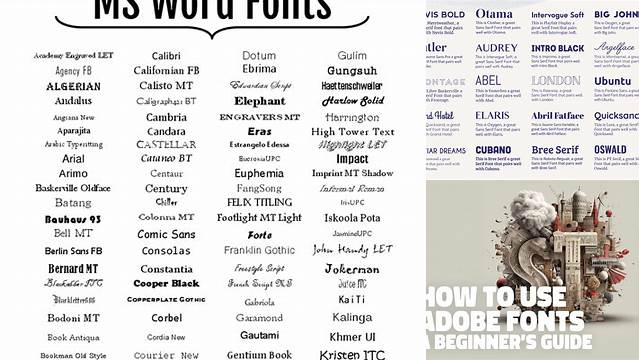
Using Adobe Fonts In Word: A Simple Guide
Hey guys! Ever wanted to spice up your Microsoft Word documents with some beautiful and unique fonts? Well, you're in luck! Adobe Fonts offers a massive library of fonts that can really make your documents stand out. But how do you actually use these fonts in Word? Don't worry, it's easier than you think! This guide will walk you through everything you need to know, from activating fonts to troubleshooting common issues. Let's dive in!
1. Understanding Adobe Fonts Integration with Microsoft Word
The first step in using Adobe Fonts in Microsoft Word is understanding how the two platforms work together. Adobe Fonts, formerly known as Typekit, is a subscription-based service that gives you access to thousands of fonts. These fonts are synced to your computer through the Adobe Creative Cloud desktop application. Microsoft Word, on the other hand, relies on the fonts installed on your operating system. The integration between Adobe Fonts and Word happens through this system-level font installation. When you activate a font in Adobe Creative Cloud, it becomes available to all applications on your computer, including Word. This seamless integration makes it incredibly convenient to use a wide variety of fonts in your documents. Think of it like having a gigantic font library at your fingertips, ready to transform your reports, resumes, and presentations. No more boring Times New Roman, folks! You can now express your creativity and professionalism with a vast selection of typefaces. This integration also ensures consistency across different platforms and devices, which is crucial for maintaining a polished and cohesive look in your documents. By understanding this underlying mechanism, you’ll be better equipped to troubleshoot any issues that might arise and make the most of the Adobe Fonts library in your Word documents.
6. Choosing the Right Adobe Font for Your Word Document
Choosing the right Adobe Font for your Word document is crucial for conveying the right message and creating a professional or stylish look. It's not just about picking a font that looks pretty; it's about selecting a typeface that suits the content and purpose of your document. Consider the tone you want to convey. For formal documents like resumes or business reports, you'll want to stick with classic, easy-to-read fonts like Times New Roman, Arial, or Calibri (yes, even Calibri can look good!). These fonts are clean, professional, and won't distract the reader. For more creative projects, like flyers or brochures, you can experiment with more decorative fonts. But be careful not to go overboard! A font that's too fancy can be difficult to read and might detract from your message. Think about the overall design of your document. The font should complement the other elements, such as images and colors. A font that clashes with the overall design can make your document look cluttered and unprofessional. Consider the readability of the font. Even a beautiful font is useless if it's hard to read. Make sure the font size is appropriate for the document and that the spacing between letters and lines is comfortable. Don't be afraid to experiment with different fonts. Try pairing different fonts for headings and body text. A bold, eye-catching font for headings can draw attention, while a simpler font for body text can ensure readability. Choosing the right font is an art, but with a little practice, you'll develop an eye for typography and be able to select the perfect font for any Word document.
7. Adobe Fonts and Word Compatibility: What You Need to Know
When it comes to using Adobe Fonts in Word, understanding compatibility is key to ensuring your documents look their best across different devices and platforms. Generally, Adobe Fonts are designed to work seamlessly with Microsoft Word, but there are a few things to keep in mind. First, remember that Adobe Fonts are synced to your computer through the Adobe Creative Cloud desktop app. This means that anyone who opens your document on a different computer will need to have the same fonts installed on their system or have an active Adobe Fonts subscription. If the recipient doesn't have the fonts installed, Word will substitute them with default fonts, which can drastically change the appearance of your document. To avoid this, you can embed the fonts in your Word document. Embedding fonts includes the font files within the document itself, ensuring that the fonts will display correctly regardless of whether they're installed on the recipient's computer. However, embedding fonts can increase the file size of your document. Another option is to save your document as a PDF. PDF files embed fonts by default, so this is a reliable way to ensure consistent font display. Keep in mind that some older versions of Word might have limited support for certain Adobe Fonts features, such as OpenType features like ligatures and swashes. If you're using a complex font with these features, it's a good idea to test your document on different versions of Word to ensure it displays correctly. By understanding these compatibility considerations, you can ensure that your Word documents look their best no matter where they're opened.
8. Embedding Adobe Fonts in Word for Sharing
Sharing your Word documents with others can be tricky, especially when you've used Adobe Fonts. You want to make sure your document looks exactly the way you intended, but what happens if the recipient doesn't have those same fonts installed? That's where embedding fonts comes in! Embedding fonts in your Word document includes the font files within the document itself. This means that anyone who opens the document will see the fonts you've used, regardless of whether they have them installed on their computer. To embed fonts in Word, go to the "File" menu and select "Options." In the Word Options dialog box, click on the "Save" tab. At the bottom of the tab, you'll see a section called "Preserve fidelity when sharing this document." Check the box that says "Embed fonts in the file." You'll also see two options below that: "Embed only the characters used in the document" and "Do not embed common system fonts." The first option will reduce the file size by only embedding the characters you've used, while the second option will prevent common fonts like Arial and Times New Roman from being embedded, as they're likely already installed on most computers. Choose the options that best suit your needs. Embedding fonts is a great way to ensure your documents look consistent when shared, but it's important to be aware that it can increase the file size. If you're sharing a large document, you might want to consider other options, such as saving it as a PDF.
9. Converting Word Documents with Adobe Fonts to PDF
10. Updating Adobe Fonts for the Latest Word Version
Keeping your Adobe Fonts updated is crucial for ensuring optimal compatibility with the latest version of Word and for accessing new fonts and features. Adobe regularly releases updates to its font library, so it's important to stay on top of these updates to get the most out of your subscription. The Adobe Creative Cloud desktop app makes it easy to manage your font updates. When a new font update is available, you'll see a notification in the Creative Cloud app. Simply click on the notification to view and install the updates. You can also manually check for updates by going to the "Fonts" tab in the Creative Cloud app and clicking on the "Manage Fonts" button. This will open the Adobe Fonts website, where you can see a list of available updates. In some cases, you might need to restart Word after updating your fonts for the changes to take effect. This is especially true if you're using a lot of custom fonts. Keeping your fonts updated not only ensures compatibility but also gives you access to the latest typographic trends and styles. Adobe is constantly adding new fonts to its library, so updating regularly means you'll always have fresh options to choose from for your Word documents. Think of it as giving your documents a regular typographic makeover!